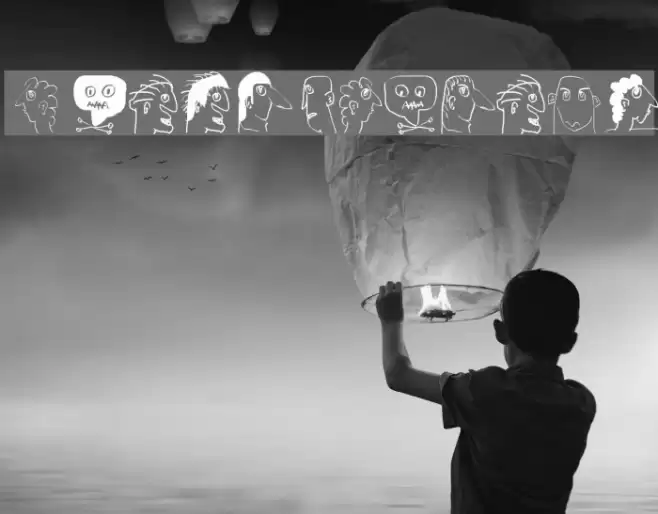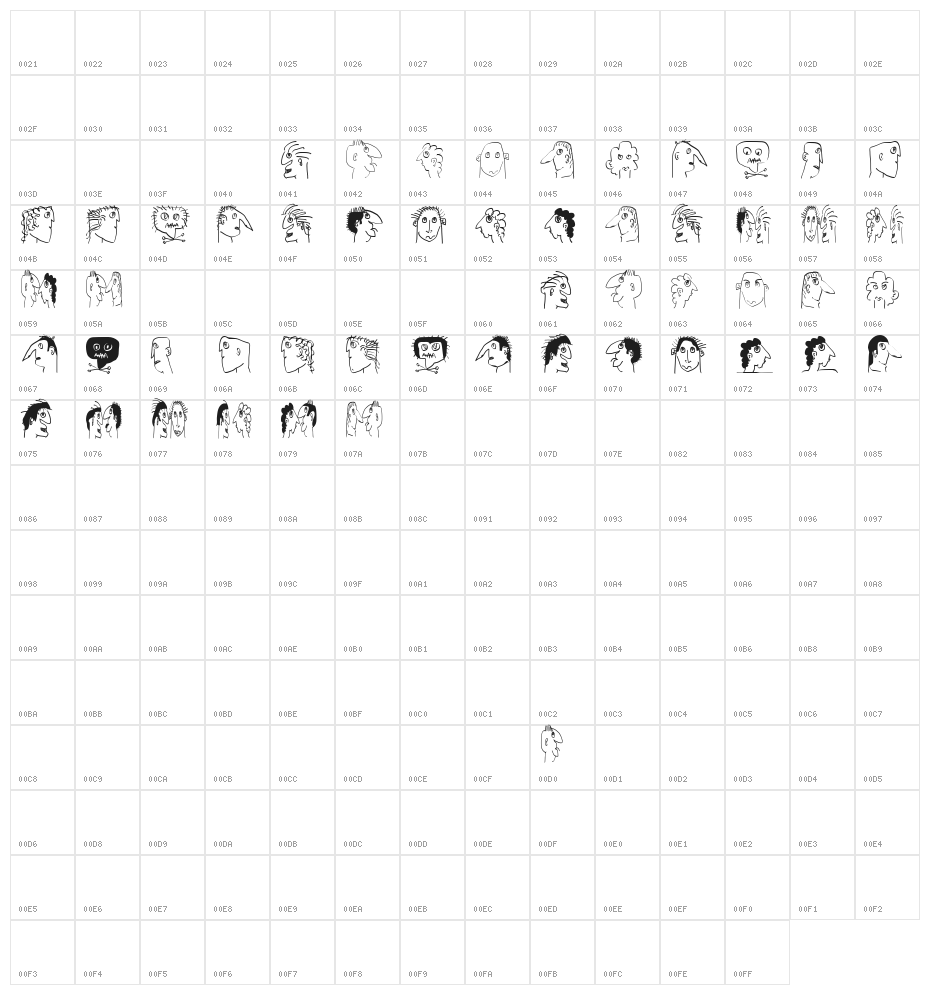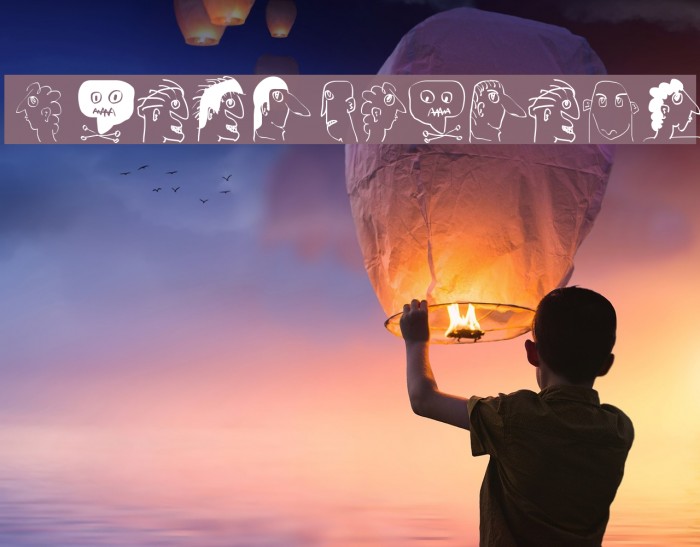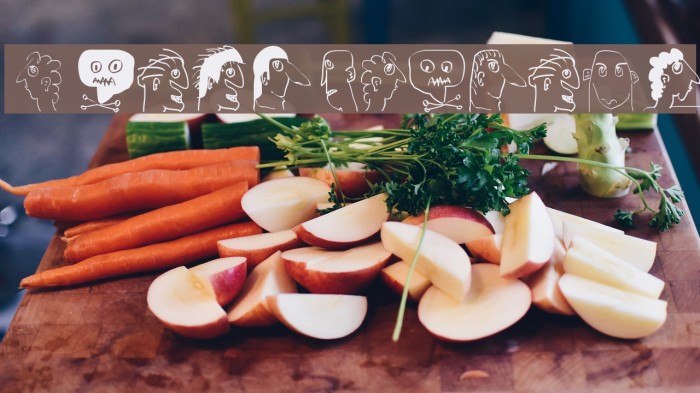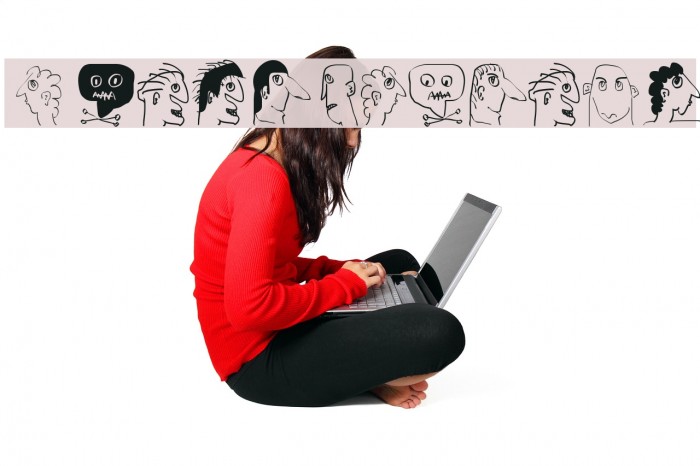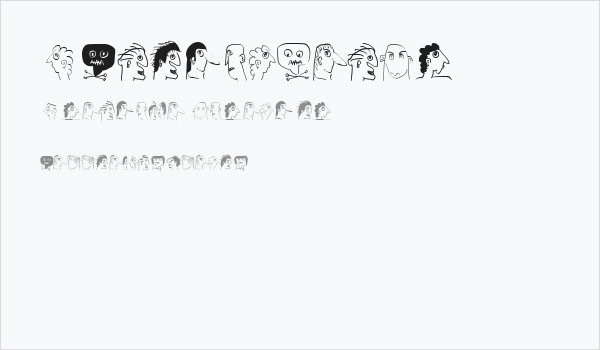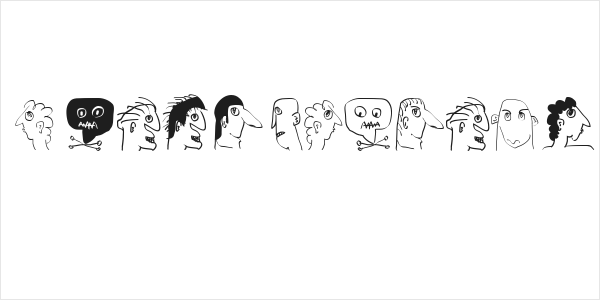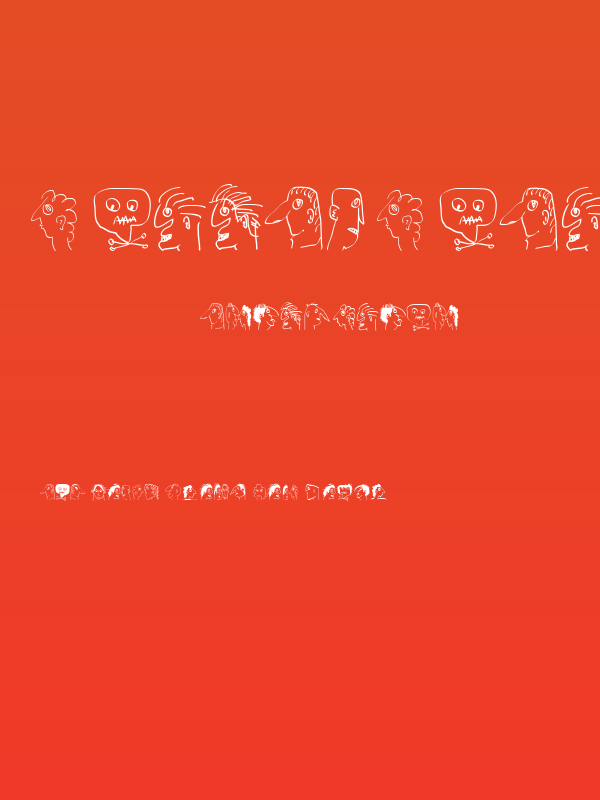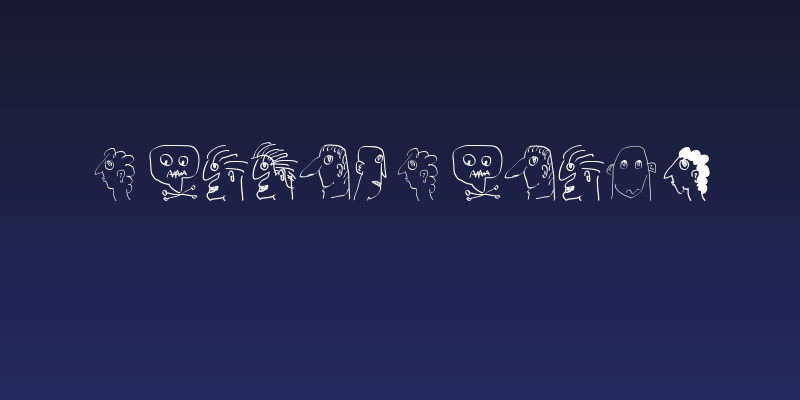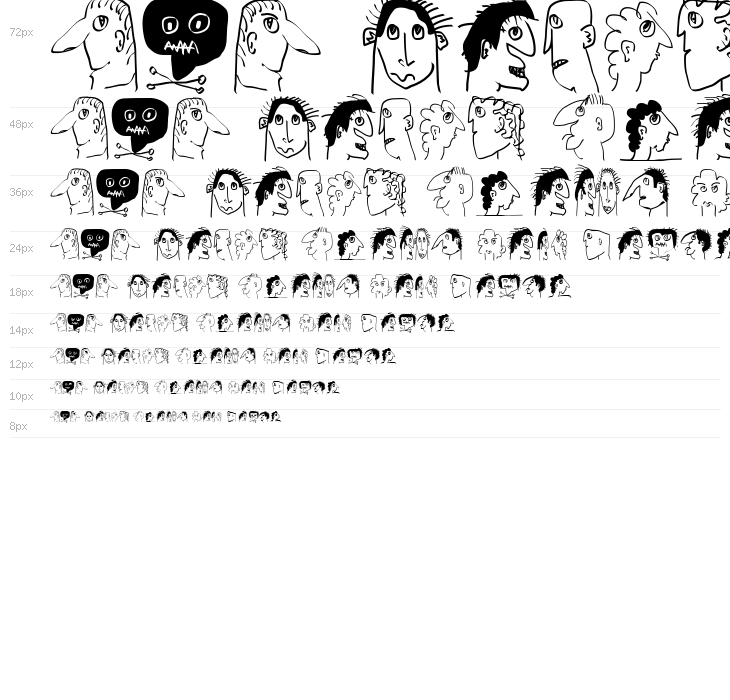
ChaoticHeads Font
ChaoticHeads Description
A highly illustrative and whimsical font composed of hand-drawn, chaotic cartoon heads representing each character, with each glyph featuring unique facial expressions and hairstyles. The style is playful, irregular, and full of personality, with varying line thickness and organic, sketch-like forms.
A playful, hand-drawn font made up of quirky cartoon heads from Uncategorized fonts.
- Proposed Projects: Children's books, comic titles, party invitations, posters, creative branding, art projects.
- Overall Style: Whimsical, Playful, Artistic, Decorative
- Use Case: Logos, Headlines, Posters, Creative projects